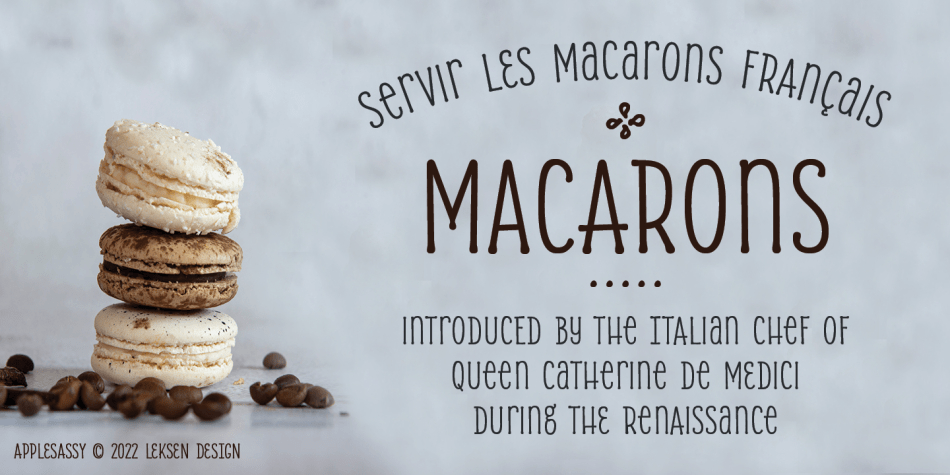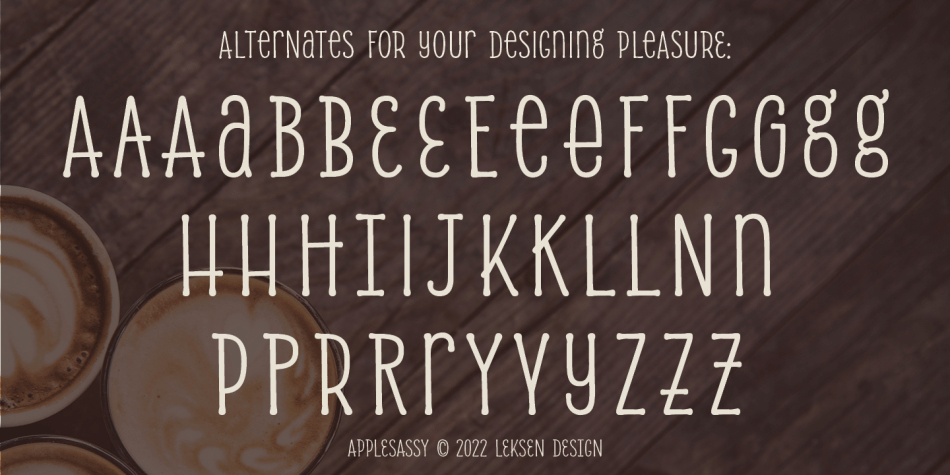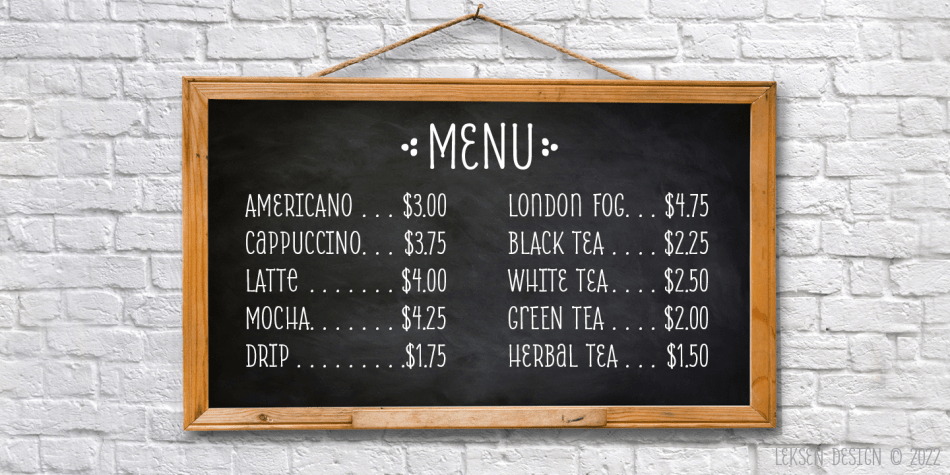
About Alasassy
Alasassy is an informal typeface that is designed to liven up logos, headlines, informal signs, advertising, book or report covers, or packaging. It\’s narrow and looks hand-written, as though it had been drawn with a felt-tip pen that left little ink…